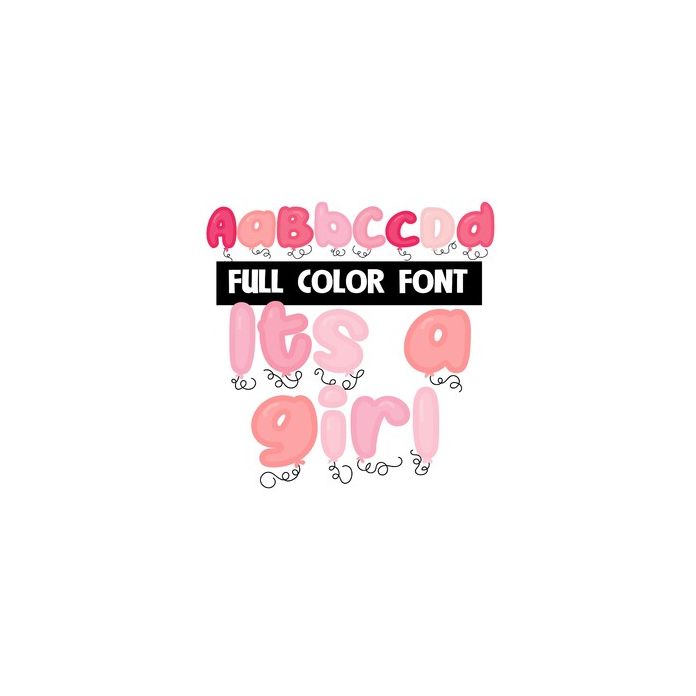
This balloon font is decked out in pink for any celebrations. You can access another version of the letters by using the alt characters in Silhouette's glyph map.